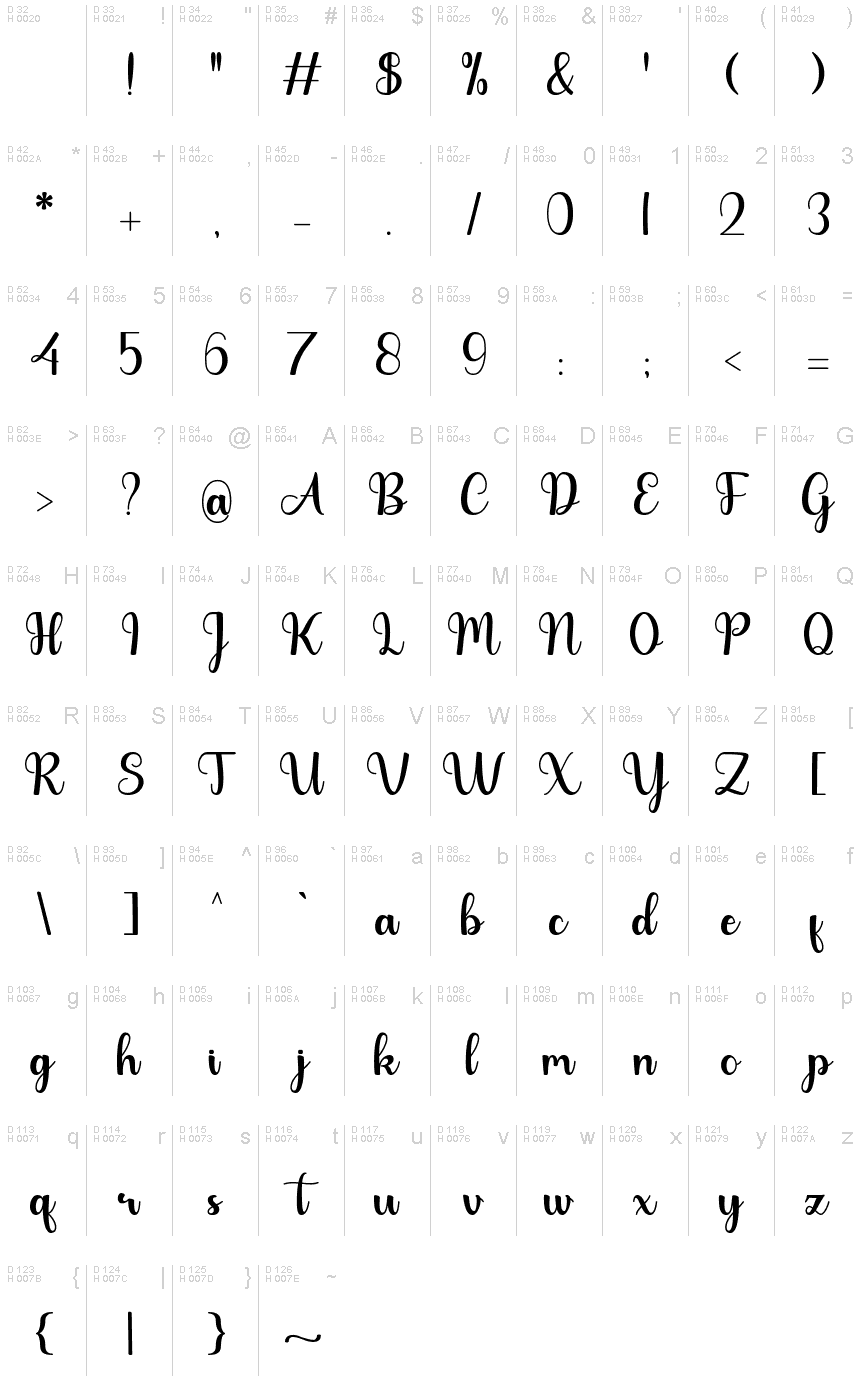
Bougaty
Bougaty, designed by Hardiboy Design, is a playful and simple handwritten font that exudes modernity and energy. Its versatility makes it suitable for a wide range of projects and design concepts.
Whether you're working on a minimalist design or something more exuberant, Bougaty will effortlessly complement your vision. Create eye-catching logos, vibrant social media graphics, captivating packaging designs, or even add a touch of whimsy to your personal blog or website.
With Bougaty, the possibilities are endless!